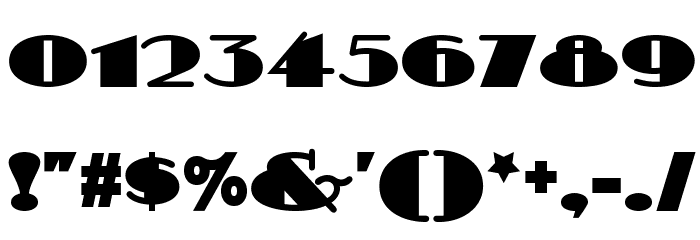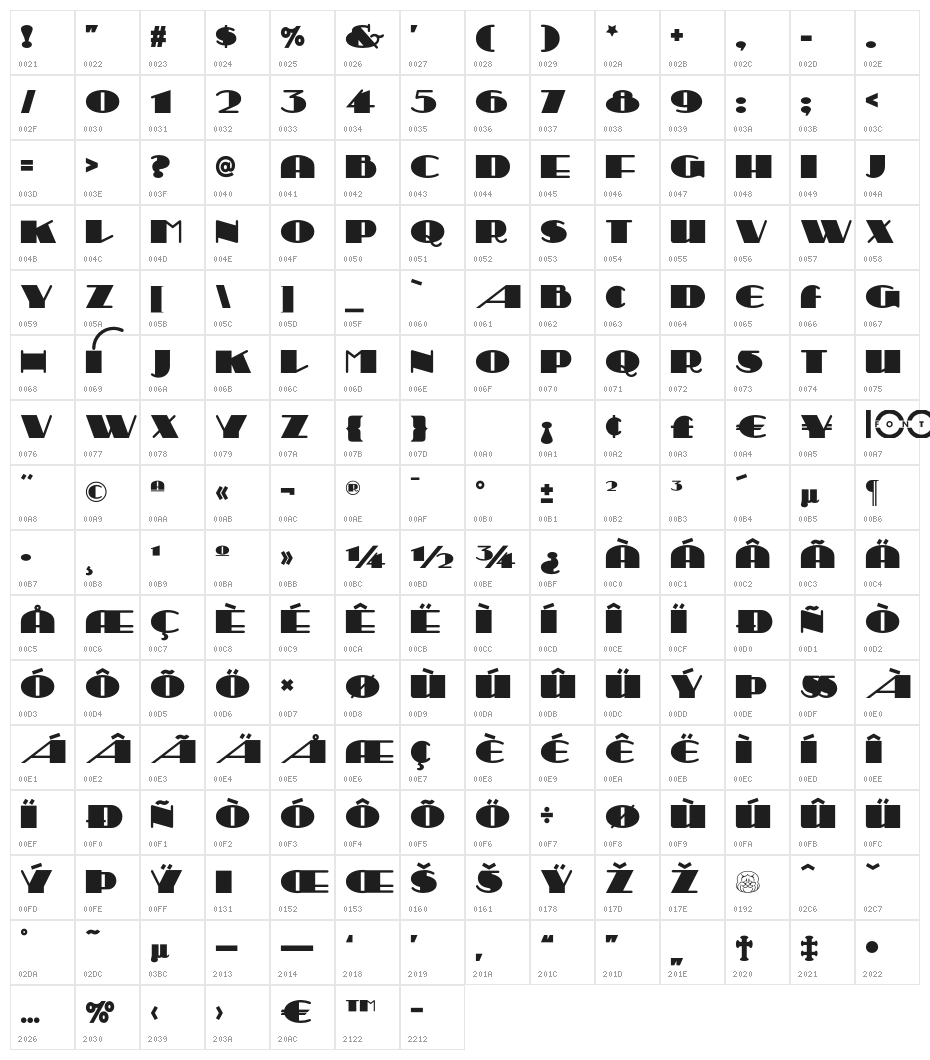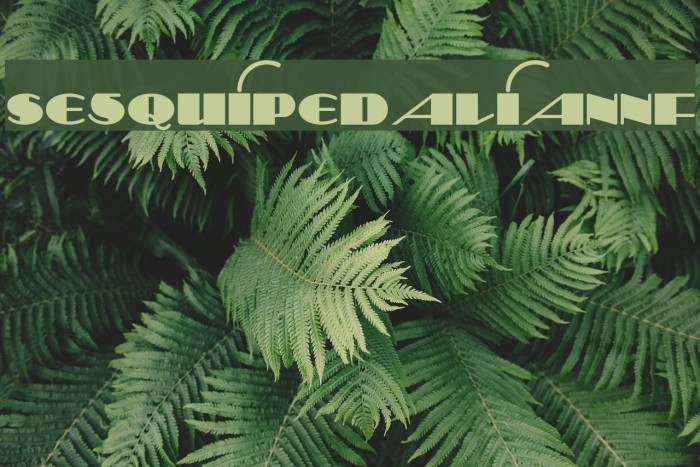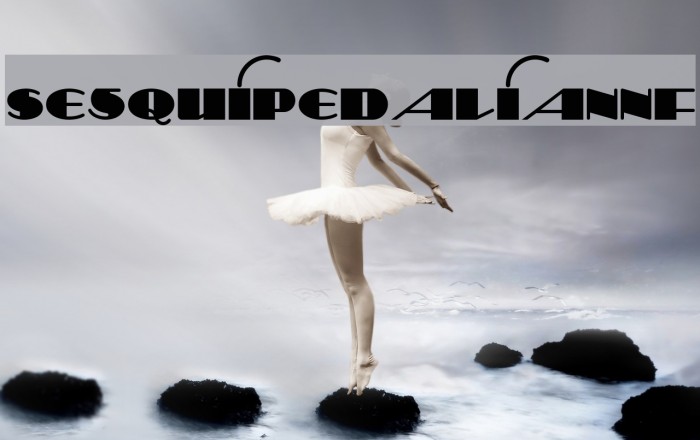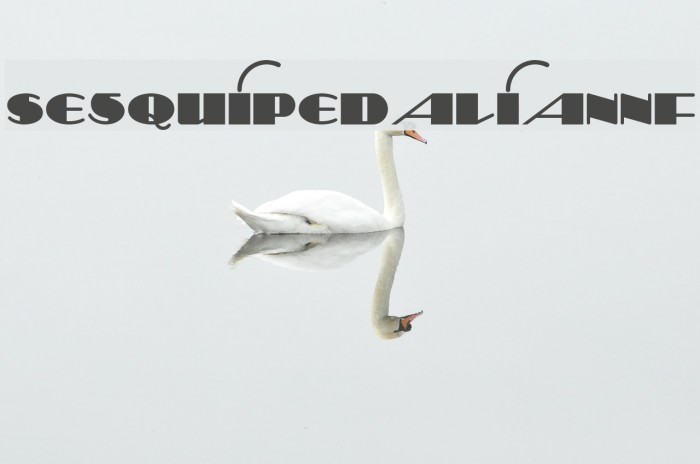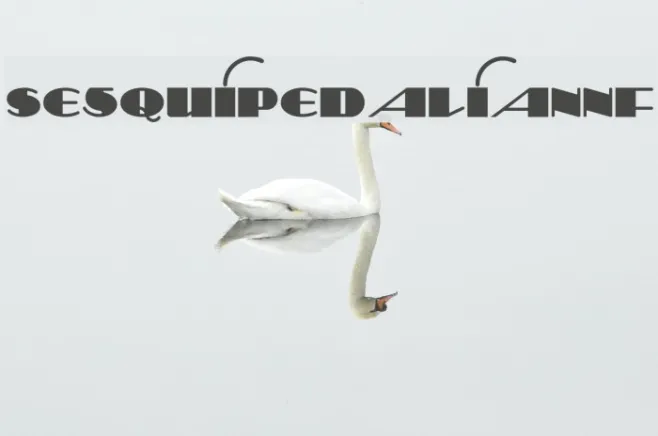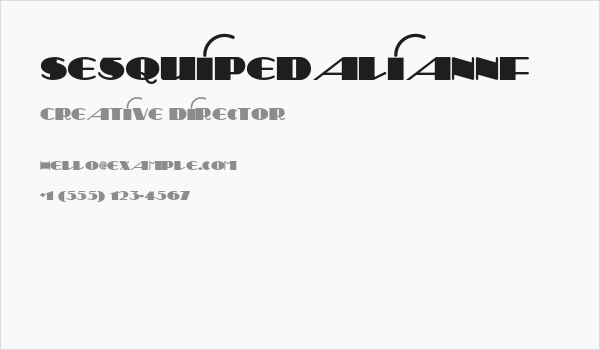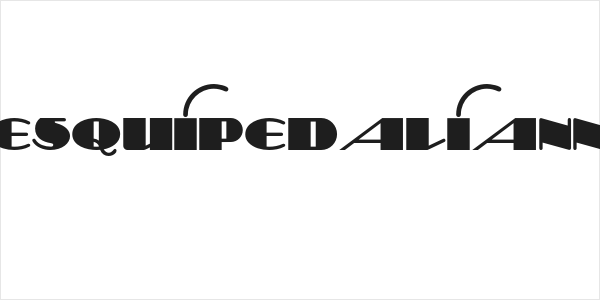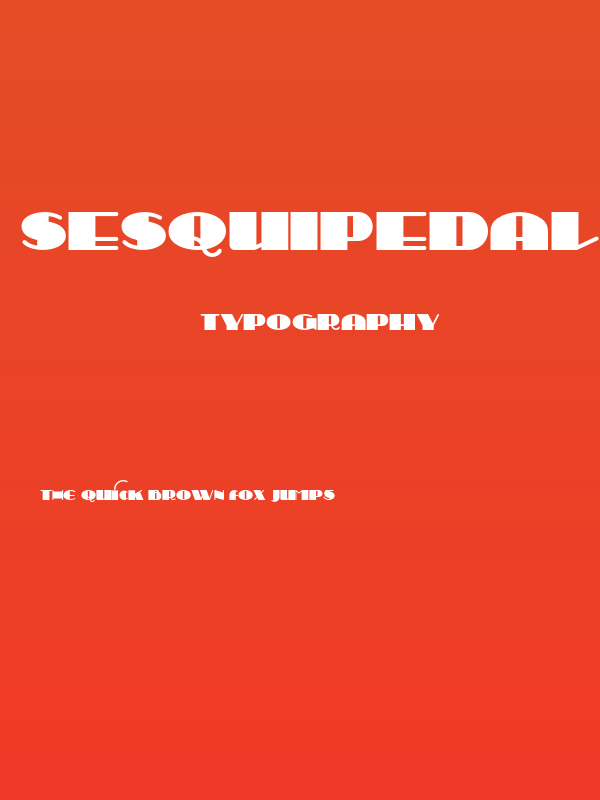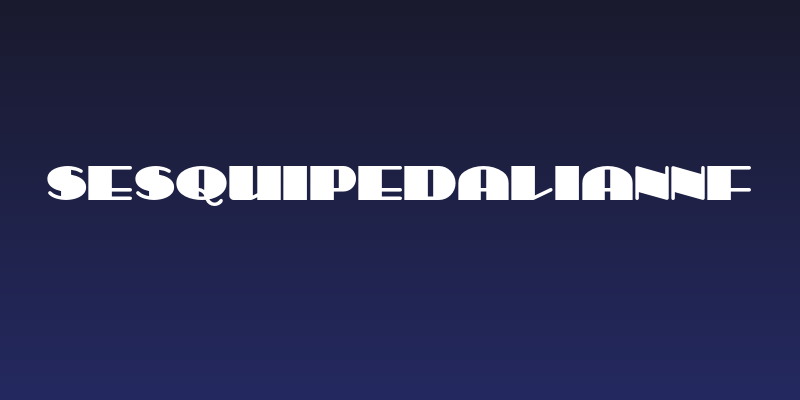
SesquipedalianNF Font
SesquipedalianNF Description
This font features a bold and striking design with a unique blend of geometric and decorative elements. The uppercase letters are characterized by thick, solid strokes with minimal contrast, creating a strong visual impact. The lowercase letters maintain this boldness while incorporating some playful curves and angles, adding a touch of whimsy. The numerals are equally bold, ensuring consistency throughout the typeface. Special characters are creatively designed, maintaining the overall aesthetic. This font is perfect for projects that require a dramatic and eye-catching display.